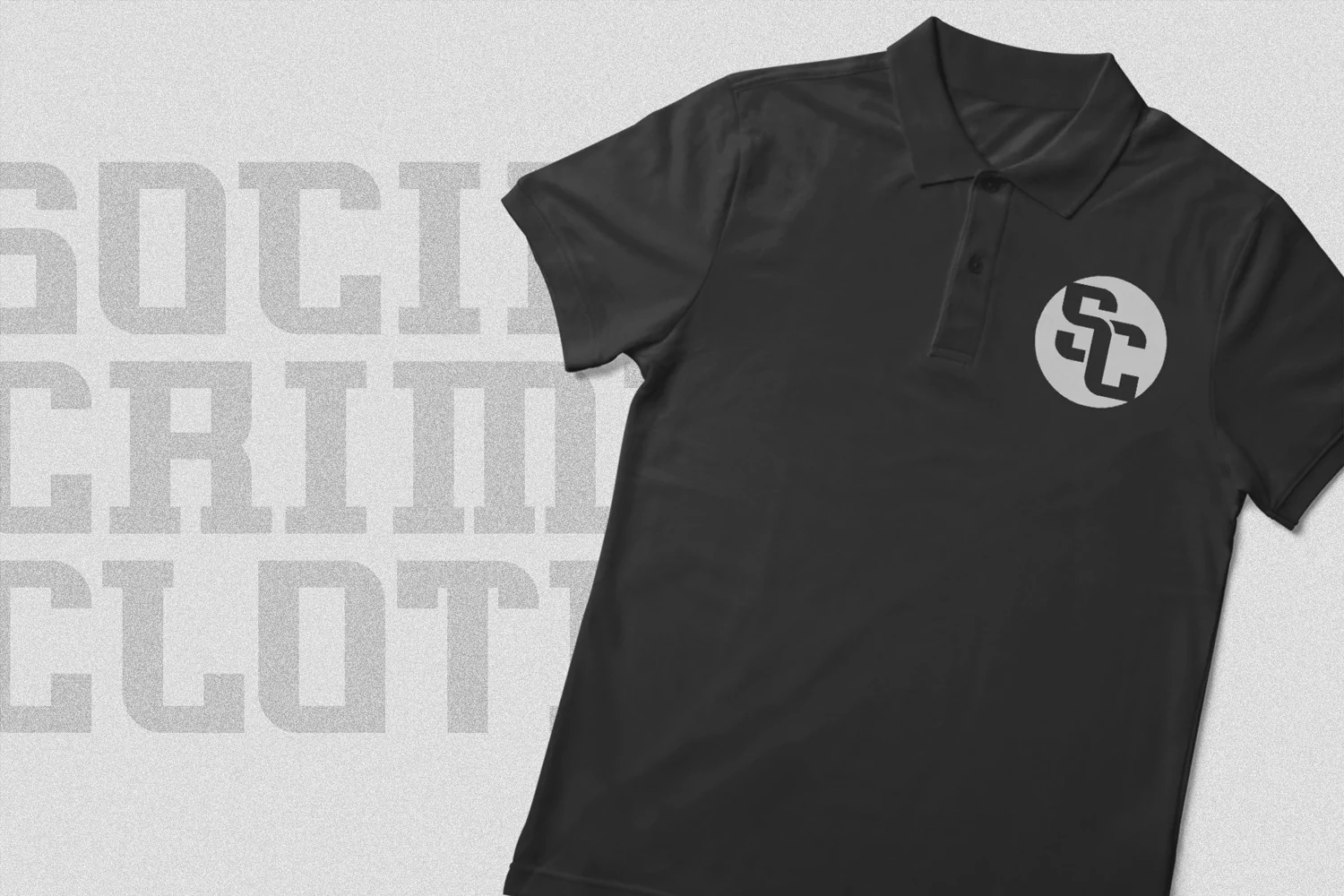
Techano is a new sport display typeface. Perfect for display, poster, quotes, film, craft needs, book cover, business card, packaging, merchandise, branding, logo, logotype, header, title, and many more.